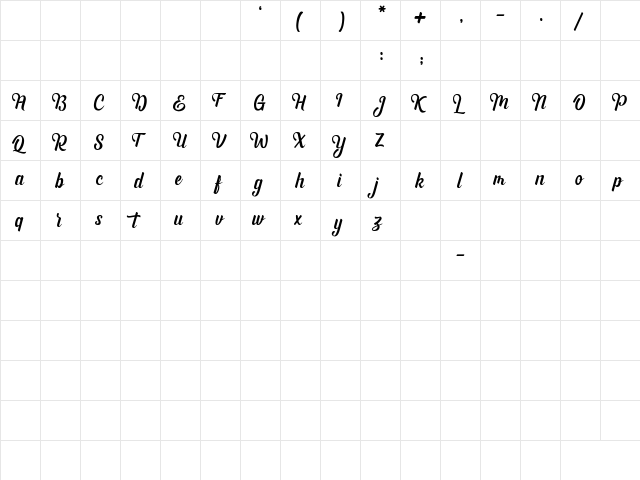
Bashira Regular
| Designer | Nurf Designs |
Design Context for Bashira Typeface
Bashira is a composed and adaptable typeface that performs quietly and consistently across a wide range of design contexts.